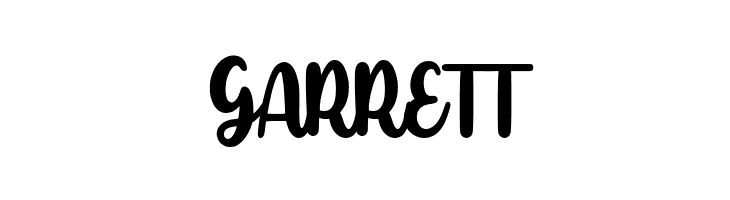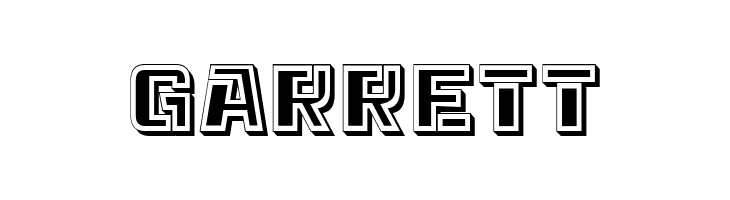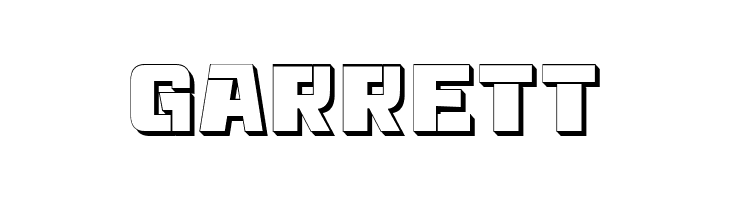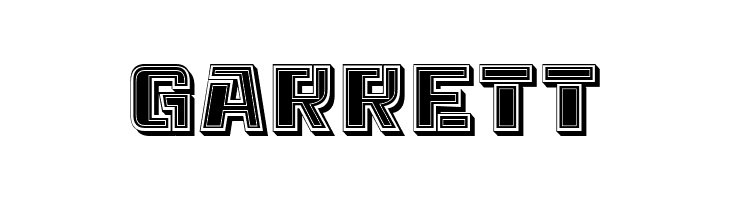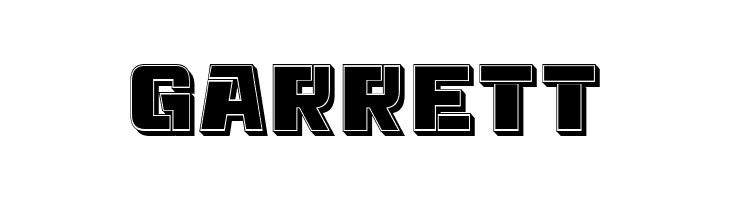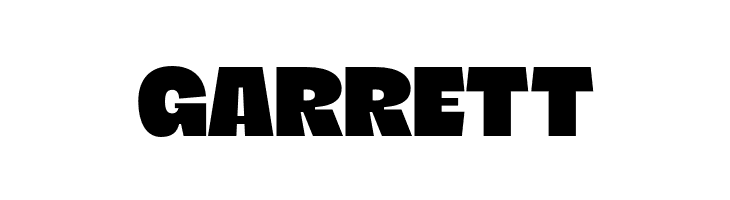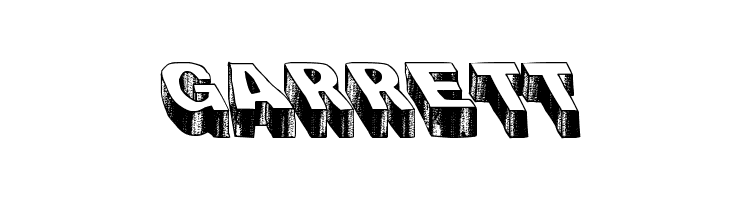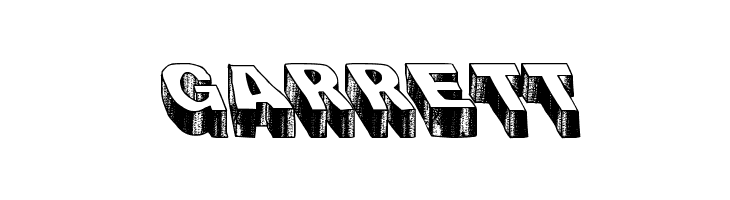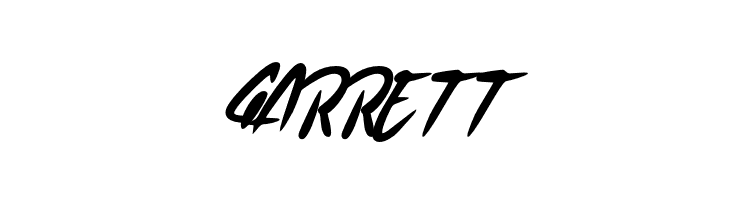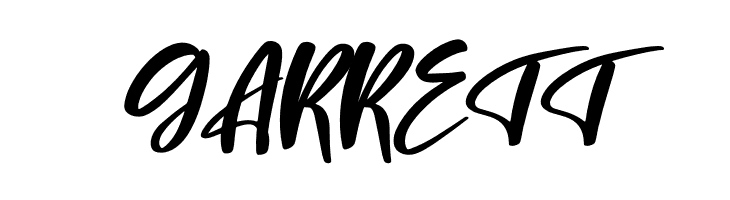
A bold, 3D vintage-style font with an engraved, shadowed appearance.
A bold, 3D vintage-style font with heavy outlines and shadowing.
A bold, brush-style font with expressive, hand-drawn strokes.
A modern sans-serif font with rounded edges and uniform strokes.
A bold, rounded sans-serif font with a modern and friendly appearance.
A bold, italic sans-serif font with smooth, rounded edges and a modern look.
A modern, italic sans-serif font with clean lines and excellent readability.
A clean, modern sans-serif font with a light weight and rounded edges.
A sleek, modern, light italic sans-serif typeface with smooth curves.
A modern, rounded sans-serif font with medium weight and excellent readability.
A modern, italic sans-serif font with medium weight and rounded edges.
A modern, rounded sans-serif font with uniform strokes and geometric influences.
A bold, rounded sans-serif font with a modern and friendly appearance.
A bold, italic sans-serif font with smooth, rounded edges and a modern look.
A modern, italicized font with clean, rounded characters and a friendly aesthetic.
A modern, light sans-serif font with rounded edges and balanced spacing.
A modern, italicized sans-serif font with clean lines and balanced spacing.
A modern, rounded sans-serif font with medium weight and excellent readability.
A modern, medium-weight sans-serif font with a slight italic slant and rounded edges.
A bold, blocky font with high contrast and uniform width, perfect for headlines and logos.
A classic serif font with elegant strokes and balanced proportions.
A pixelated, blocky font with a retro digital aesthetic.
A bold, expressive handwritten font with dynamic strokes and an organic feel.
A bold, three-dimensional font with geometric, block-like characters.
A bold, decorative font with a three-dimensional, outlined style.
A bold, three-dimensional font with geometric precision and modern appeal.
A bold, geometric font with a three-dimensional shadow effect.
A bold, geometric font with a retro arcade style and thick outlines.
A bold, playful script font with flowing, connected letters and a friendly appearance.
A bold, italicized script font with high contrast and decorative flourishes.
A bold, dynamic script font with sweeping strokes and modern flair.
A bold, handwritten font with fluid, cursive strokes and a playful style.
A dynamic and expressive script font with fluid, cursive strokes.
A playful, handwritten font with rounded, organic letterforms.